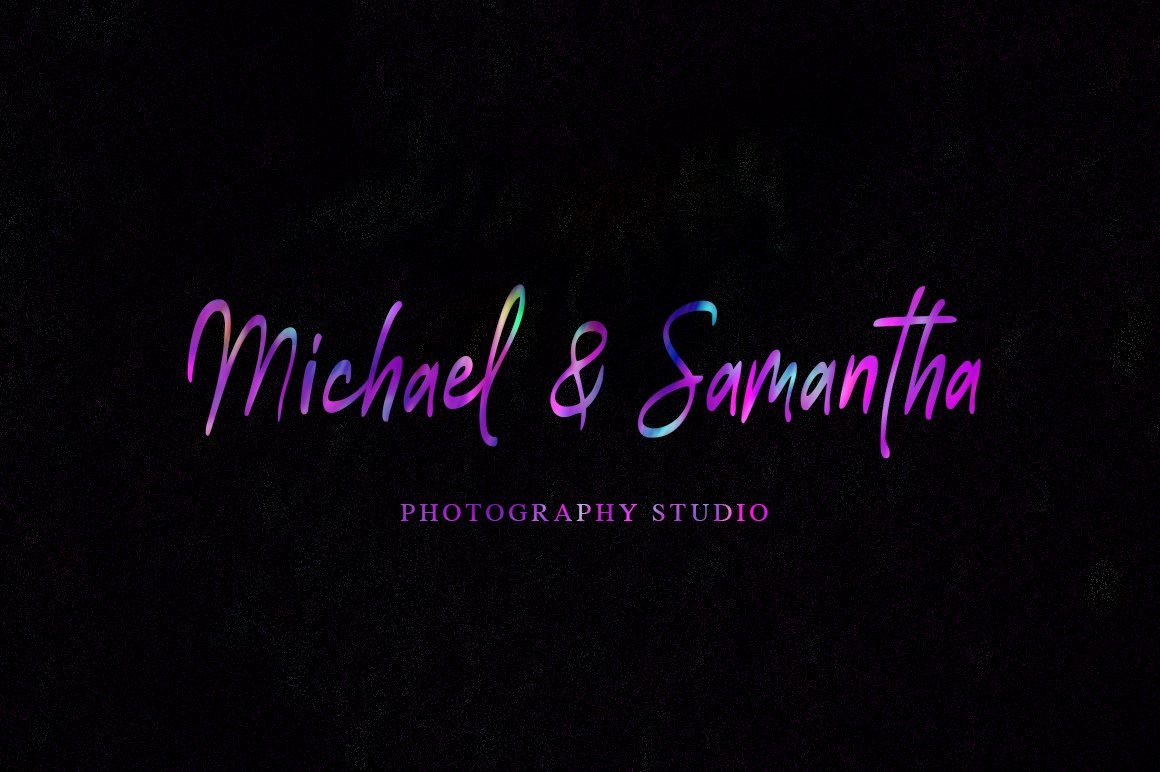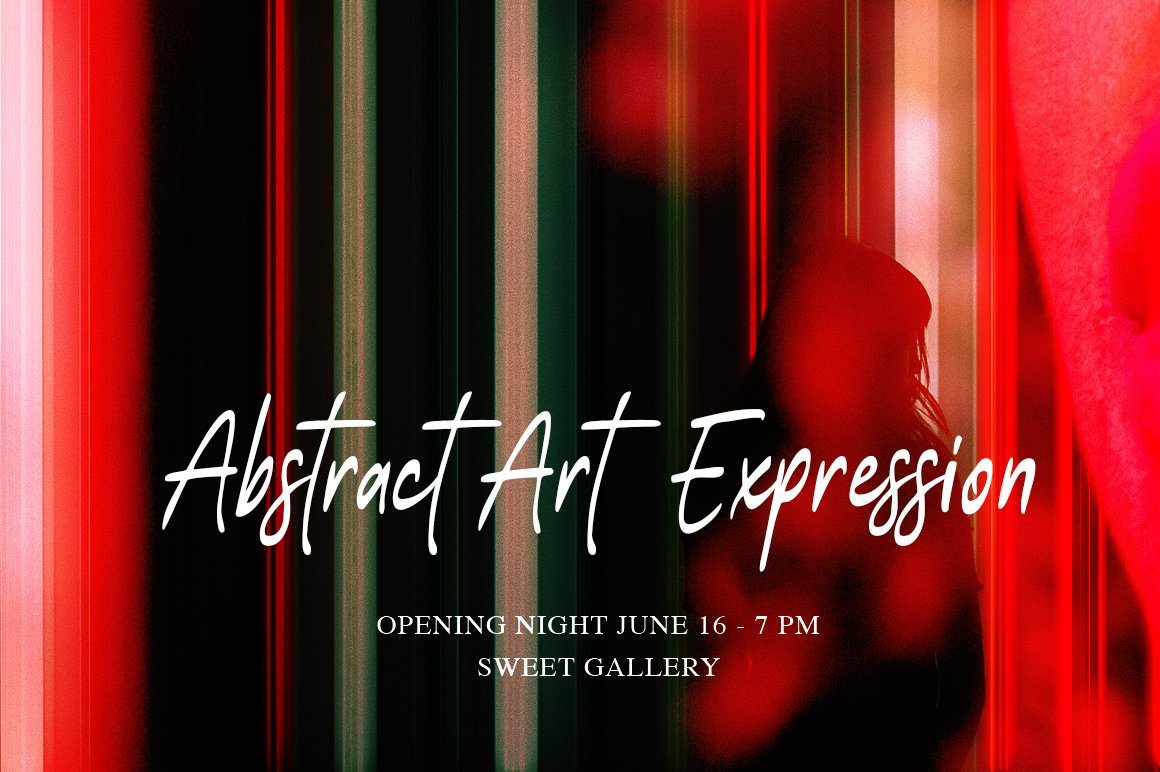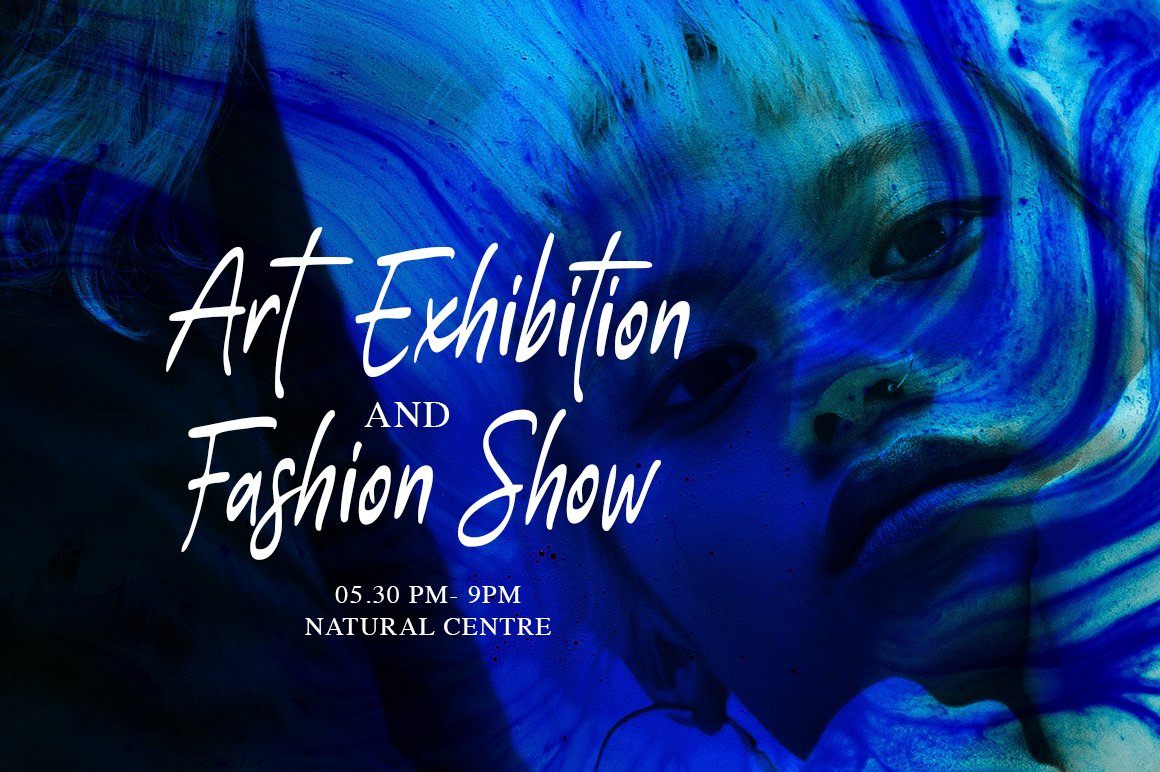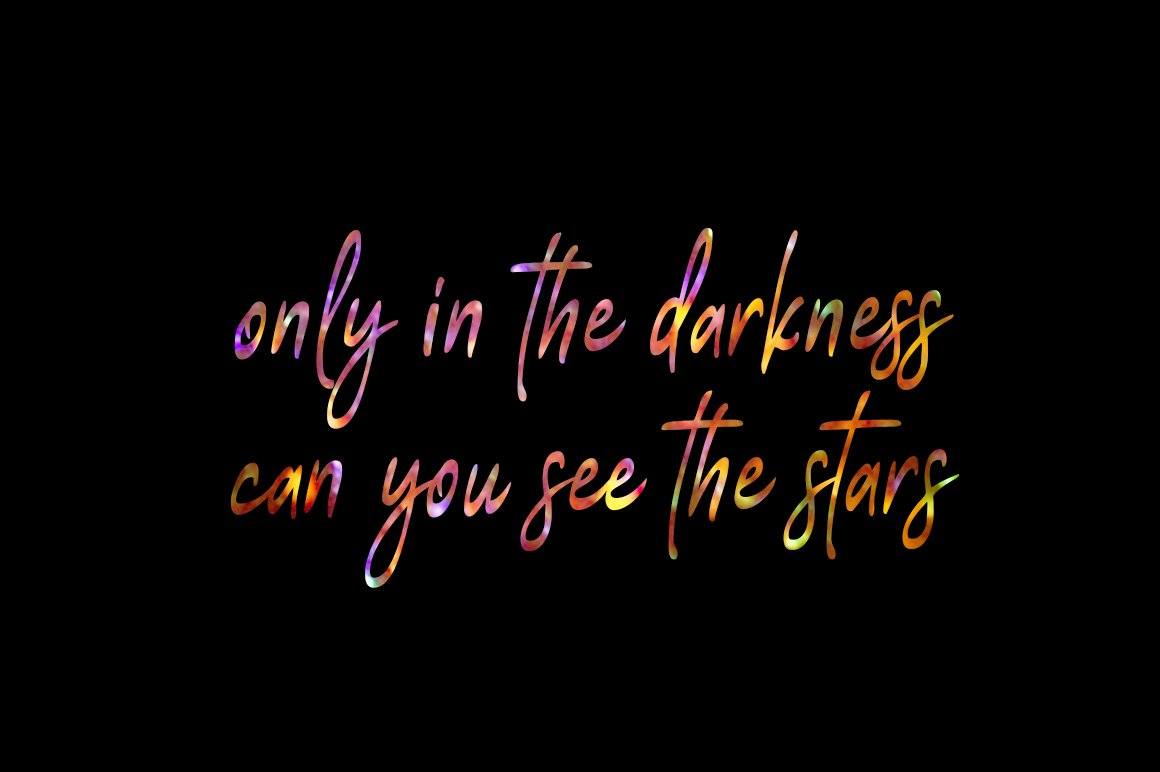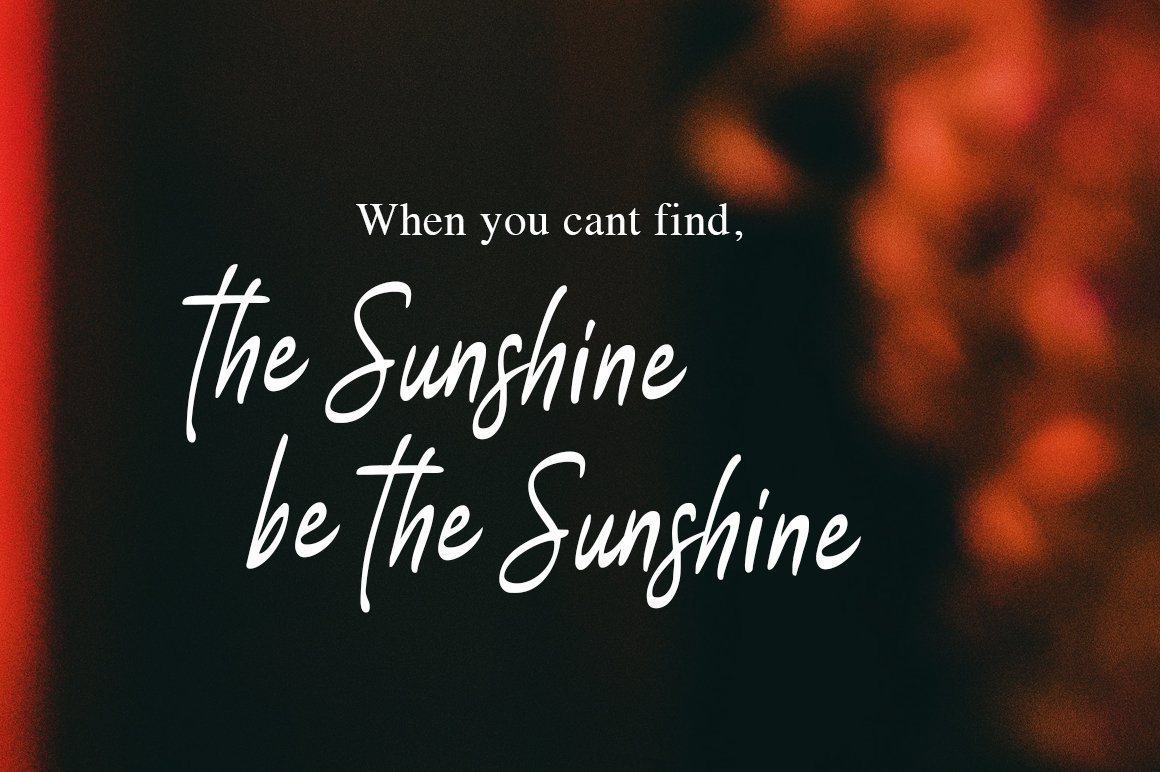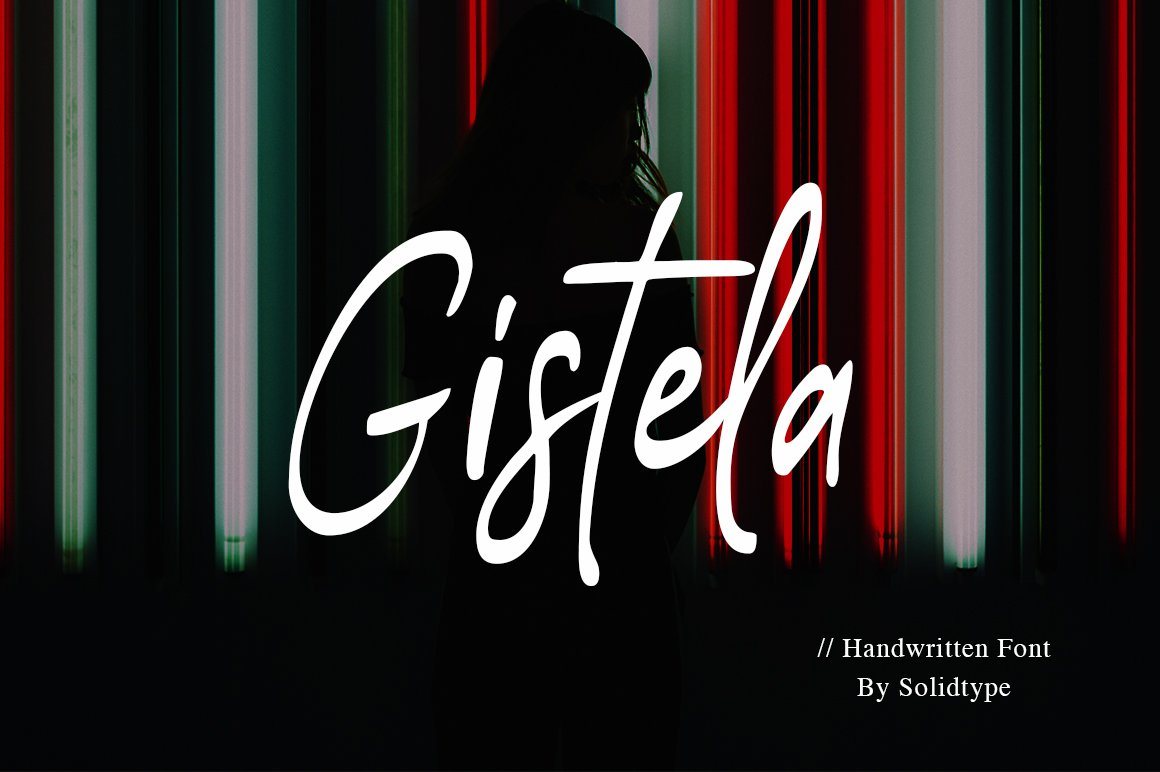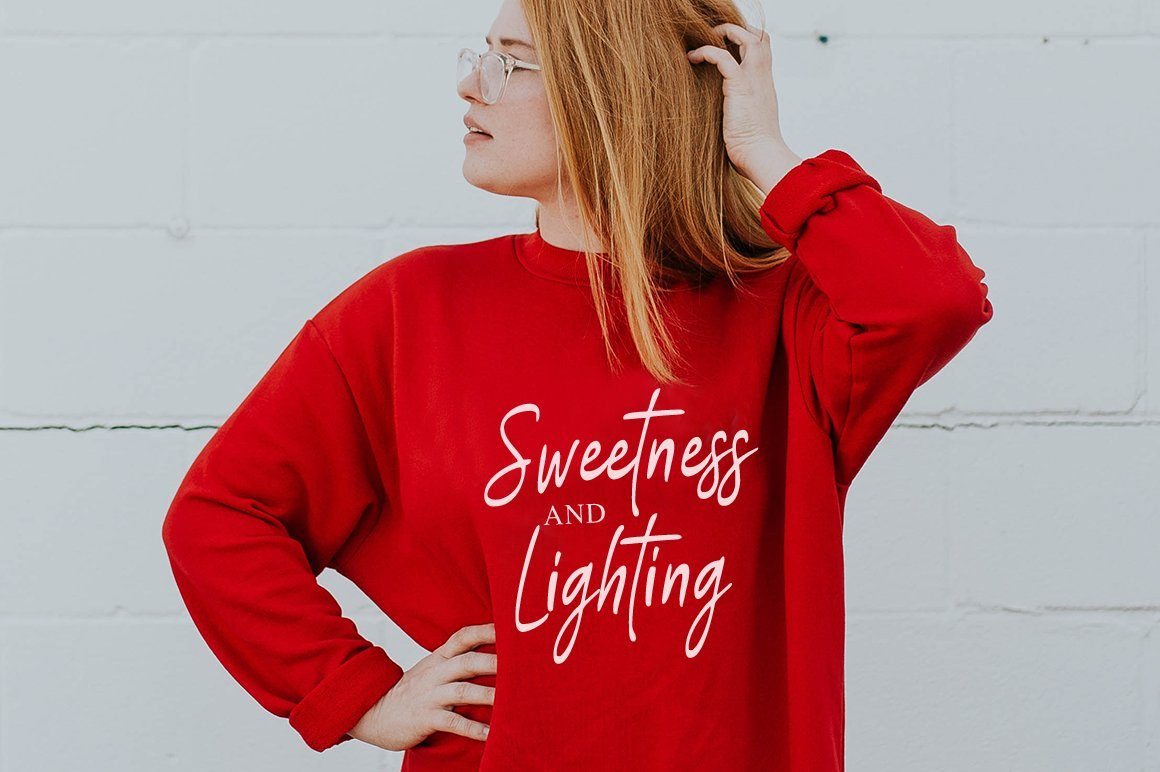
Gistela | Handwritten Font
Gistela is a handwritten script font. contemporary and fashionable. with Ligatures and Multilingual Support. This font is perfect for modern projects, headings, blogs, logos, branding, business cards, websites, invitations, shirts, mugs, and more!Includes: Gistela OTF Gistela TTF Thank you!